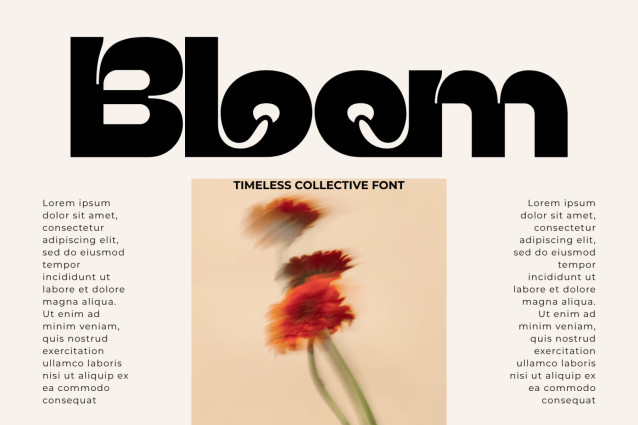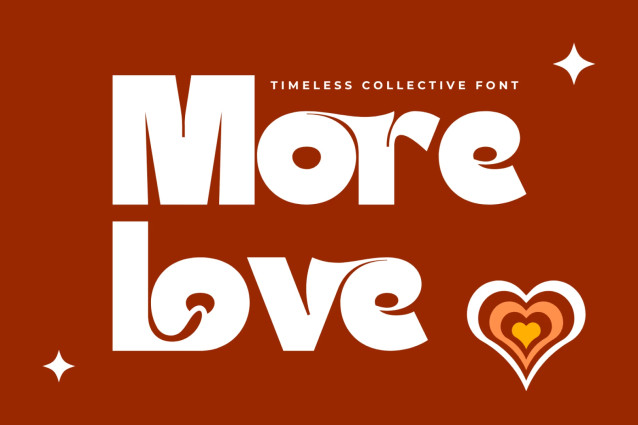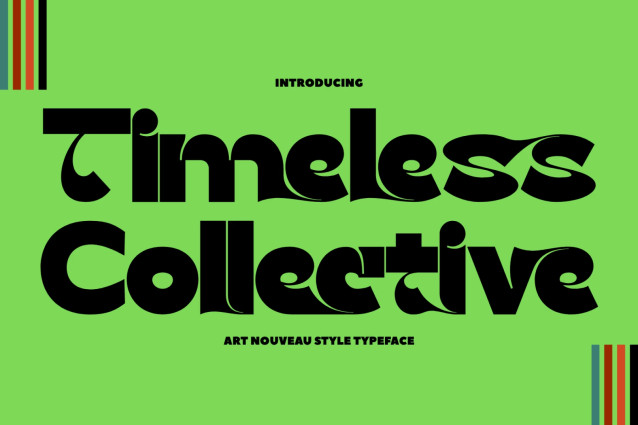
Timeless Collective – Psychedelic Font
Timeless Collective – Psychedelic Font – Modern Retro Groovy & Liquid Psychedelic Display Font is a bold, heavyweight display typeface crafted at the expressive intersection of 1970s groovy nostalgia, modern liquid geometry, and psychedelic acid graphics. Defined by its ultra-thick blocky weight, sweeping fluid swashes, and seamlessly tucked accent dots, this font commands immediate visual engagement with a playful yet confident aesthetic.
Engineered to turn display titles into custom, rhythm-infused logotypes, Timeless Collective brings a captivating organic flow to modern design projects. Its unique combination of melting letterforms and dense typographic weight makes it the ideal choice for retro streetwear brandings, indie beverage packaging, music festival posters, Y2K apparel graphics, album covers, and high-impact editorial layouts.